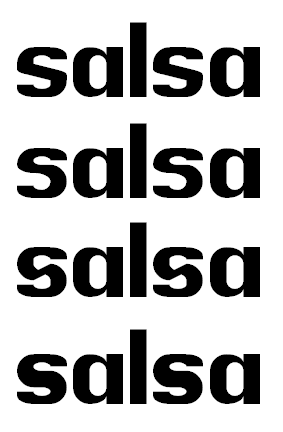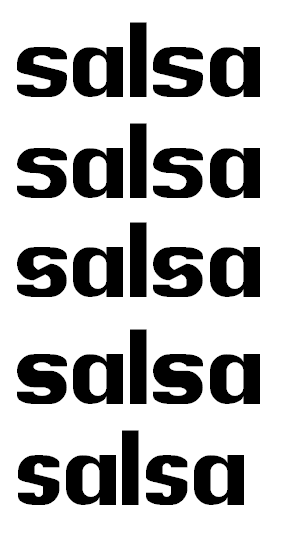
Nice work completing your basic latin set, ETH! If only there was a way to slim the spine of your s without losing its curvaceousness. It is not obvious how to resolve this classic FontStruct conundrum at this scale.
Lowercase t may benefit from a reduction in height, as well as thinning the crossbar and aligning the top of this horizontal to the x-height. W and z are a bit wide and dark – V could lend a foundation for a new W.
@will.i.ૐ: Thank you! I have a set with basic accents, too, but the spacing between the lines is ridiculous...
I know what you mean about the s. And I fixed the W, t and z. Thanks for pointing them out!
Here are a few ideas for the s. Your original is on the left.
@aphoria: Thank you for the suggestions! I've already tried out an s very similar to the 4th one, but it doesn't look right, so I left it on the ß character. I might try the middle one, but I'm not sure...
One more idea...
Nice s aphoria!
@aphoria: Wow! Amazing s! That s doesn't fit perfectly with the font, but I think it is the best one.
Anyone have a vote for which one fits best?
the first one or the third one
1.
aphoria’s definitely on to something. Try your s one brick narrower like:
I agree. I like 1 the best, but I also think it looks better a bit narrower.
@will.i.ૐ: Very clever! Do you think it fits in with the rest of the font?
You may consider revising S accordingly; otherwise, I think the last option fits best with the rest of Excalibur so far.
Way to go, Will! I vote the last one.
Excellent work, that last s also has my vote!
will.i.ૐ had a great idea to make the s once brick narrower. That one has my vote.
Thank you, everybody! And especially thanks to will.i.ૐ for the suggestion! I have updated the s and left some alternates in the More Latin set.
maybe a alternative lowercase g?